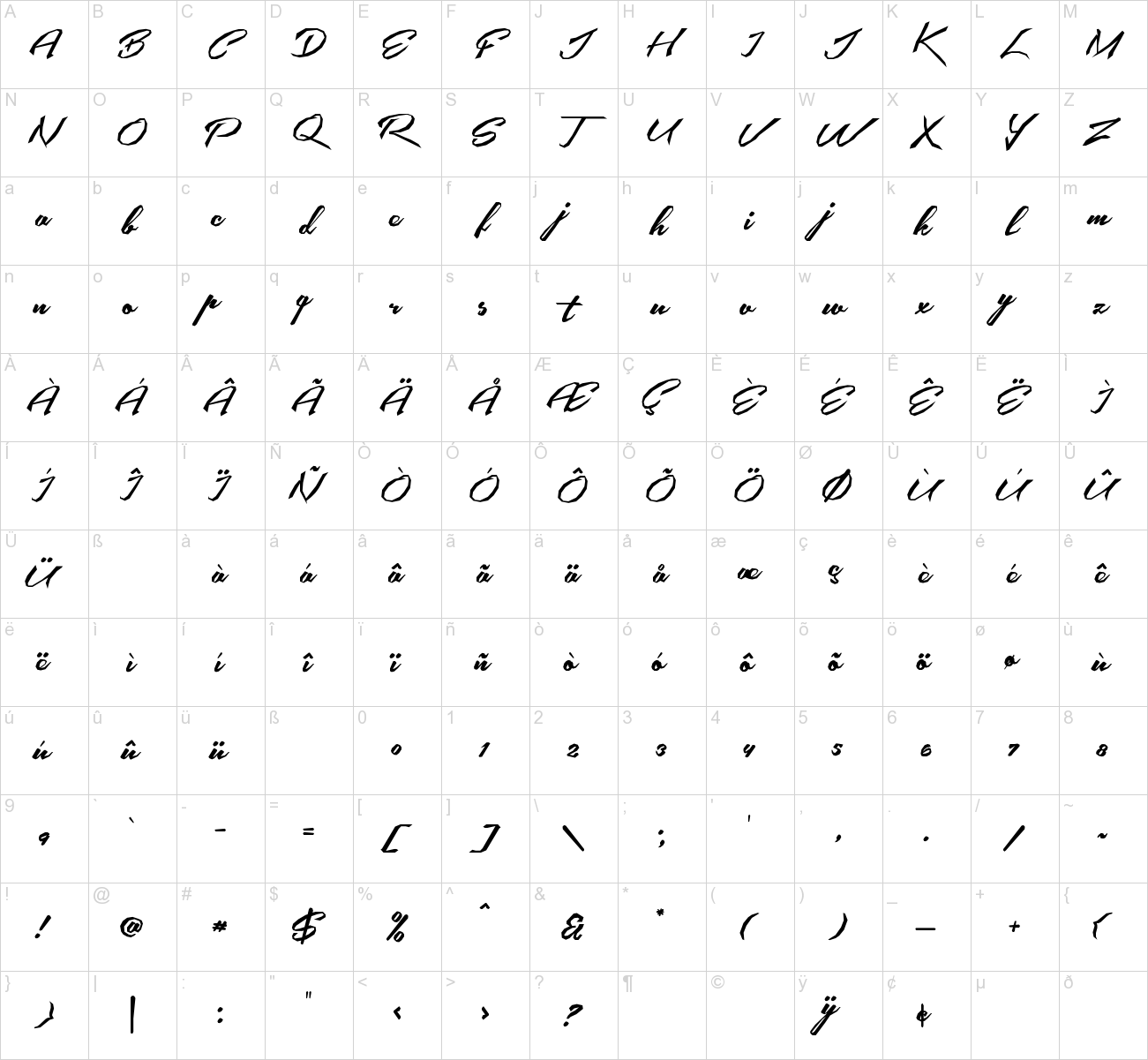
Rock Mella Brush Font
Rock Mella is a Hard hand marker, modern style marker , which was created to meet the needs of your next design project.
Rock Mella, Can used for various purposes. such as the title, logo, correspondence, letterhead, signage, labels, newsletters, posters, badges, t-shirt, etc.